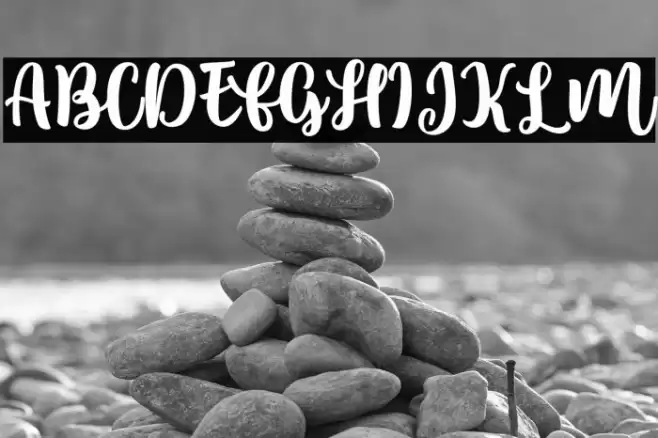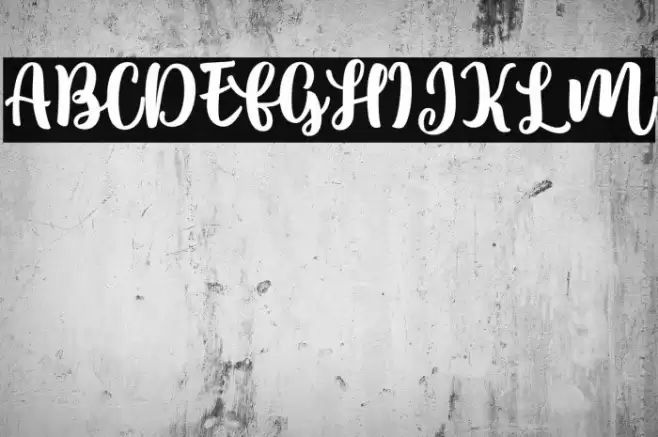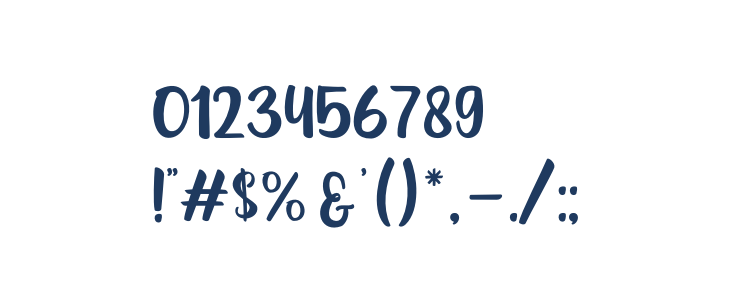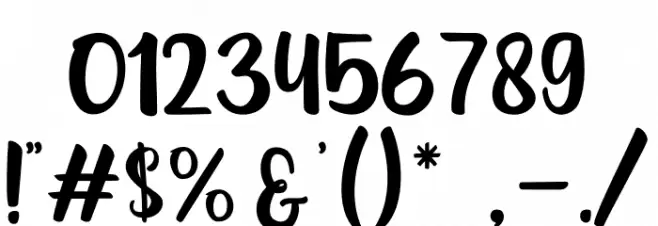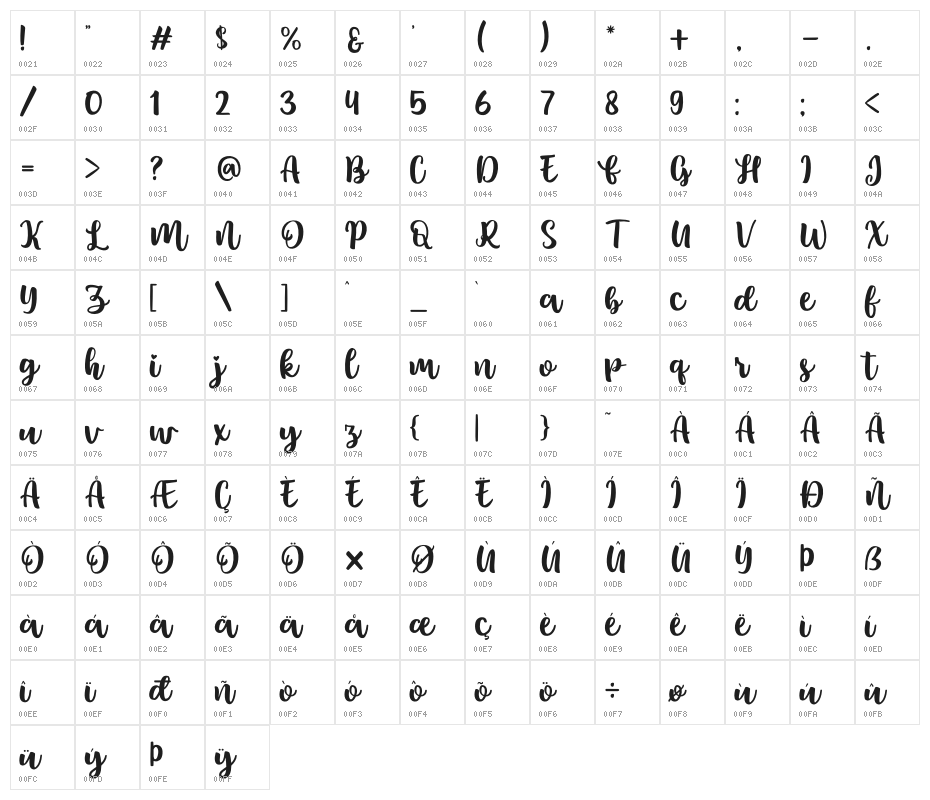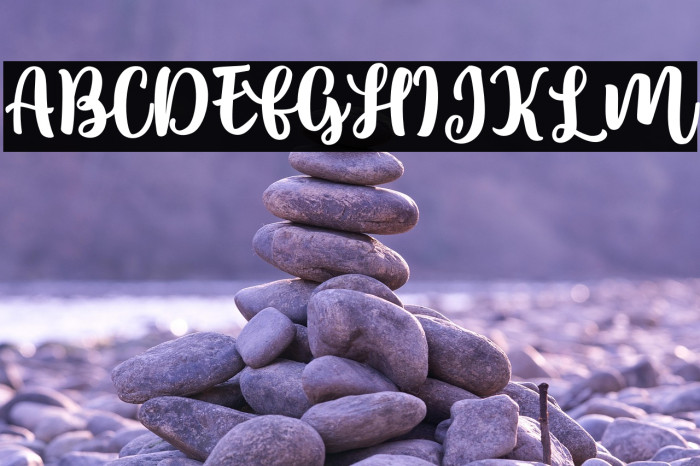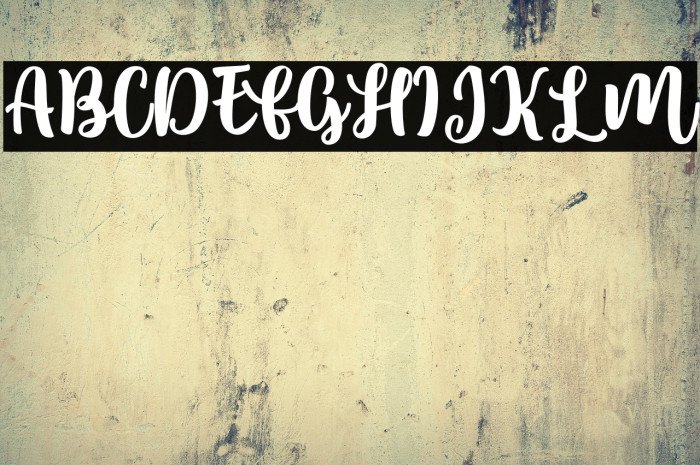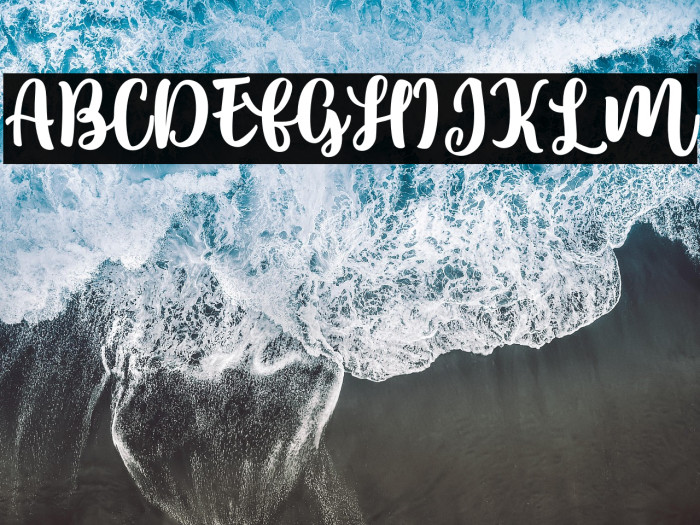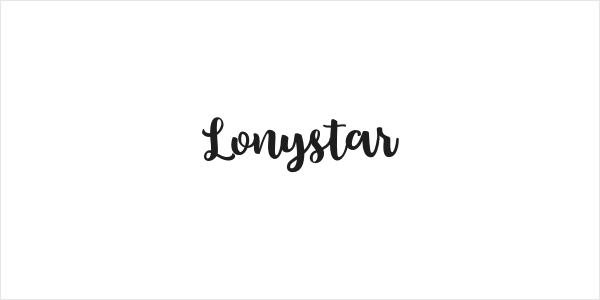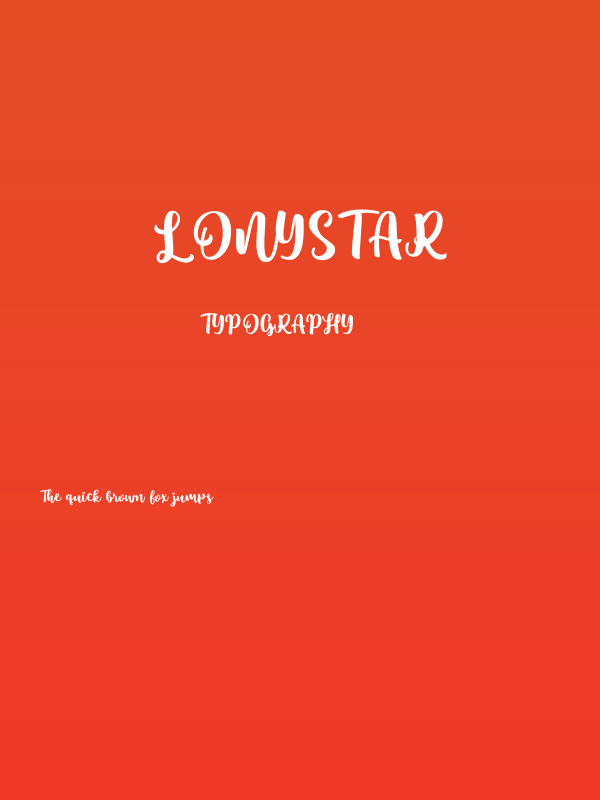
Lonystar Font
Lonystar Description
This font features a playful and bold script style, characterized by its flowing, cursive letters and thick strokes. The uppercase letters are elegantly looped, while the lowercase letters maintain a consistent, rounded form. The numbers are bold and clear, matching the overall aesthetic of the alphabet. Special characters are creatively designed, adding a whimsical touch to the font. This font exudes a sense of fun and creativity, making it ideal for projects that require a personal and lively touch.
A bold, playful script font with flowing cursive letters from Uncategorized fonts.
- Proposed Projects: Ideal for greeting cards, invitations, logos, and playful branding projects.
- Use Case: Logos, Headlines, Invitations